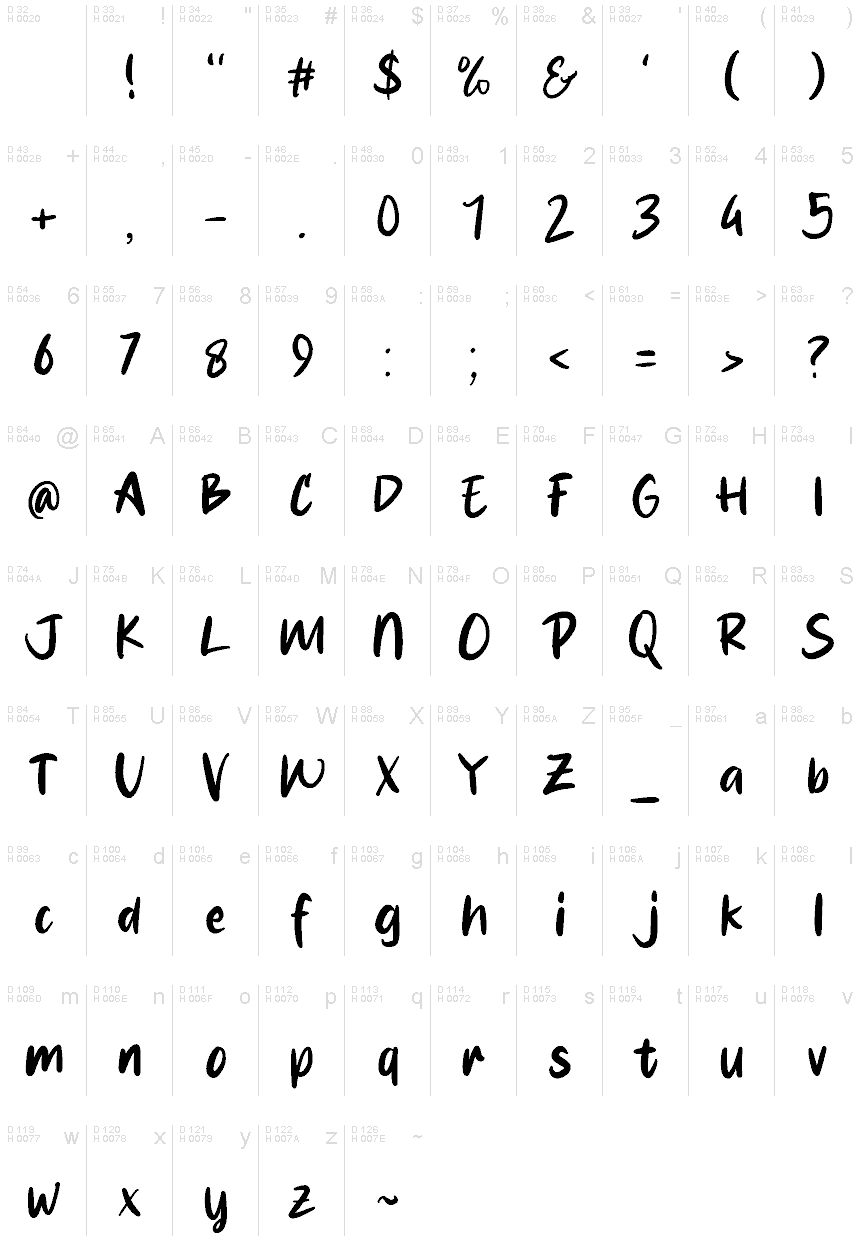
Buckluck
Buckluck font by Origin Type is a modern brush script font with casual and energetic visuals. The typeface carries an engaging and expressive flair that helps it naturally deliver a friendly, informal tone to the text. The lighthearted free handwriting font can bring plenty of character to your designs when used in the right combination of contexts.